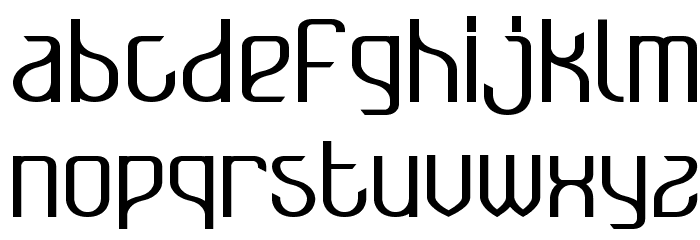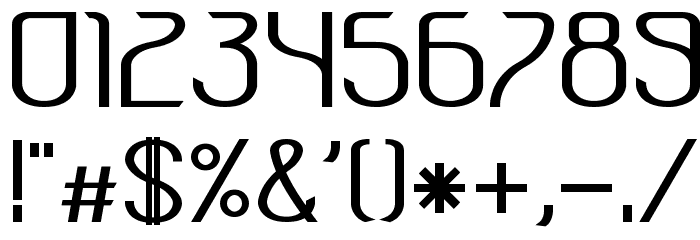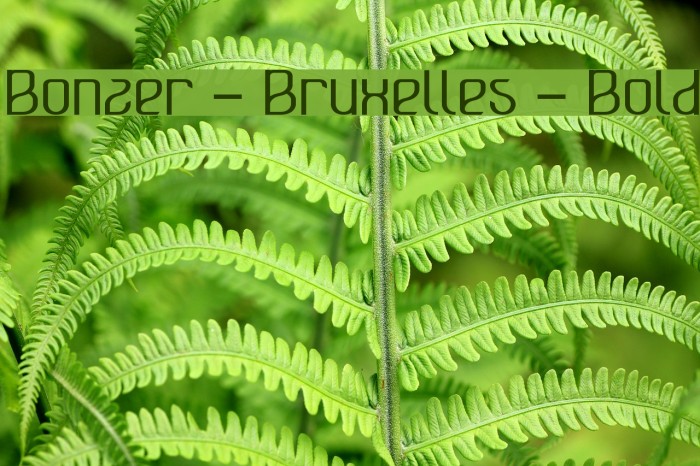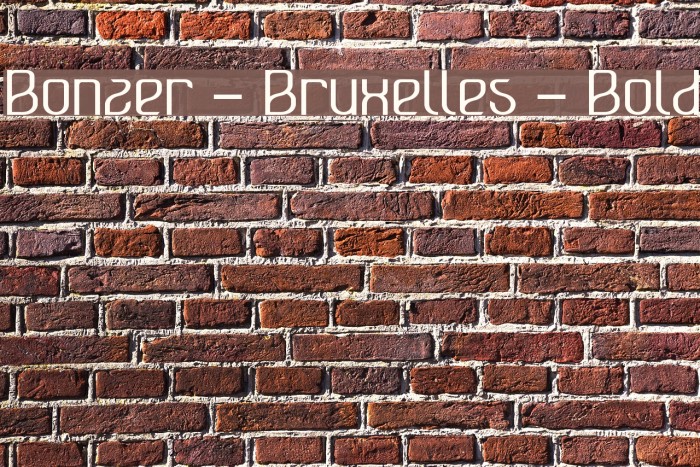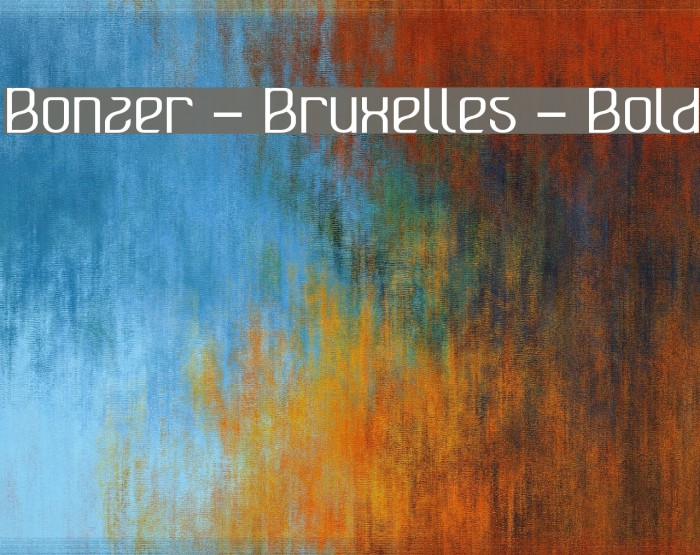
Bonzer - Bruxelles - Bold Font
This font features a bold and modern design with a geometric structure. The characters are uniform in width, creating a harmonious and balanced appearance. The uppercase letters are tall and slightly condensed, while the lowercase letters maintain a consistent height, enhancing readability. The numerals are clear and distinct, making them suitable for various applications. Special characters are well-integrated, maintaining the overall aesthetic. The font's clean lines and contemporary style make it versatile for both digital and print media.
A bold, geometric font with a modern and balanced design.
- Proposed Projects: Ideal for branding, headlines, posters, and digital media where a modern and bold statement is needed.